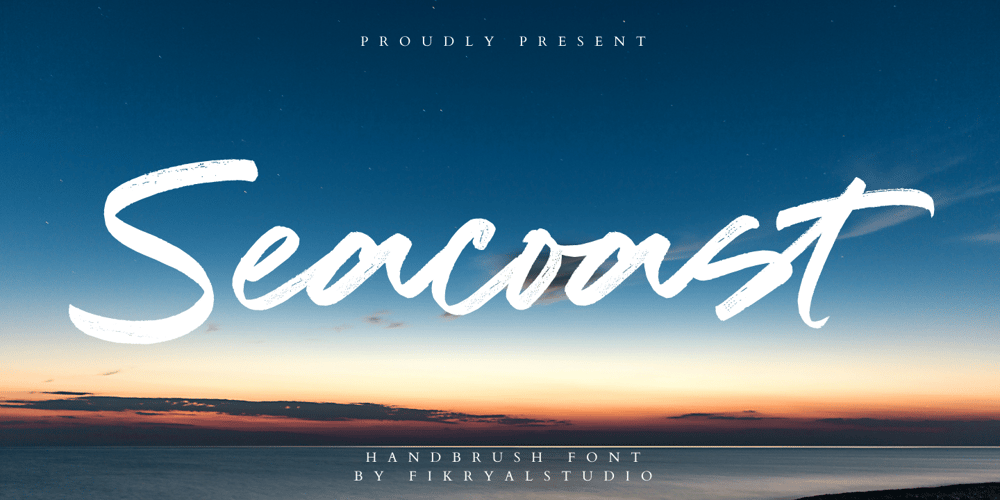
Seacoast
Seacoast font
Seacoast Font Family was designed by Muhammad Fikry and published by Fikryal. Seacoast contains 1 styles and family package options. Seacoast is a hand brush font perfect for crafting, branding, invitation, stationery, wedding designs, social media posts, advertisements, product packaging, product designs, label, photography, watermark, special events, or anything.Seacoast comes with a full set of uppercase and lowercase letters, ligatures, multilingual symbols, numerals, and punctuation.